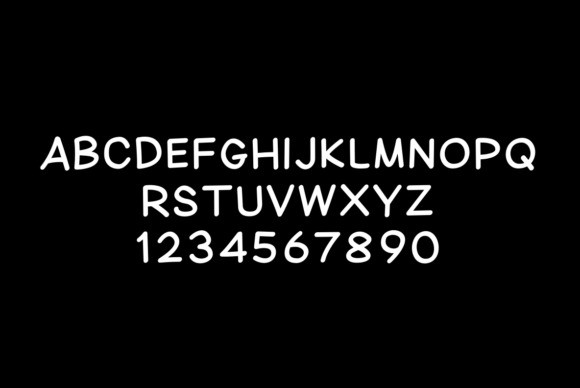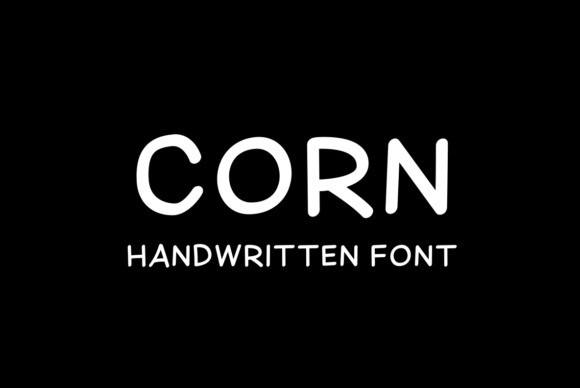
Corn Font
Corn Font is handwritten with a casual impression, this font has two styles, namely regular and bold, suitable for use in casual themed designs.